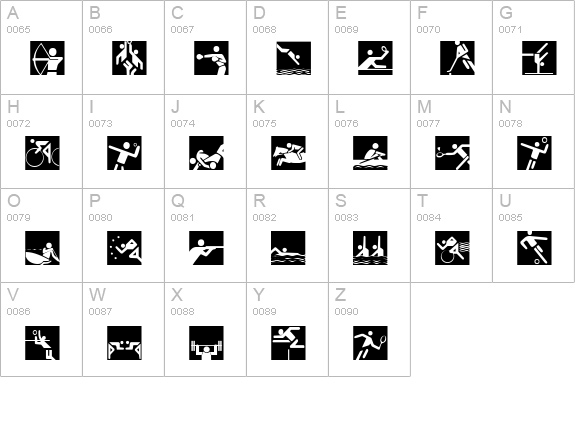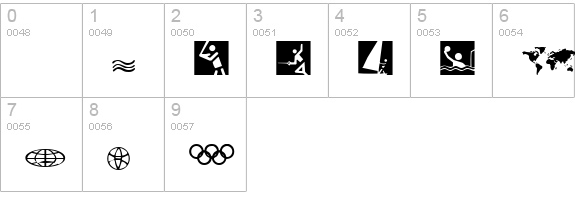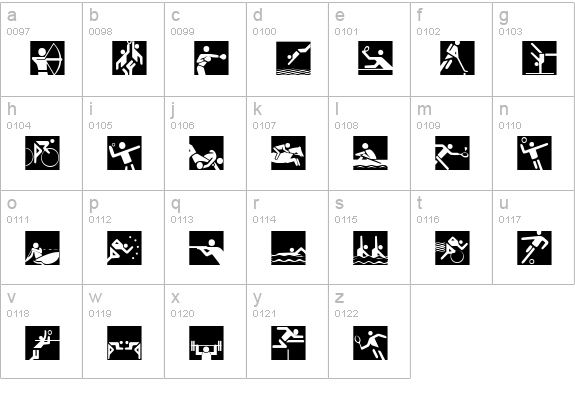
Olympicons 2 Font Details
Olympicons 2 font is a dynamic and versatile typeface that captures the essence of athleticism and triumph. With its bold and impactful letterforms, this font is perfect for sports-related designs, event promotions, and branding projects. The sleek and modern style of Olympicons 2 exudes energy and strength, making it a standout choice for any project that aims to convey a sense of power and determination. What's even better is that Olympicons 2 font is available for free download at FontsMarket.com. Yes, you read that right - you can get your hands on this impressive font without spending a dime. So why wait? Elevate your designs with Olympicons 2 and let your creativity shine with this remarkable typeface. Download it now and start creating impactful visuals that inspire and motivate.